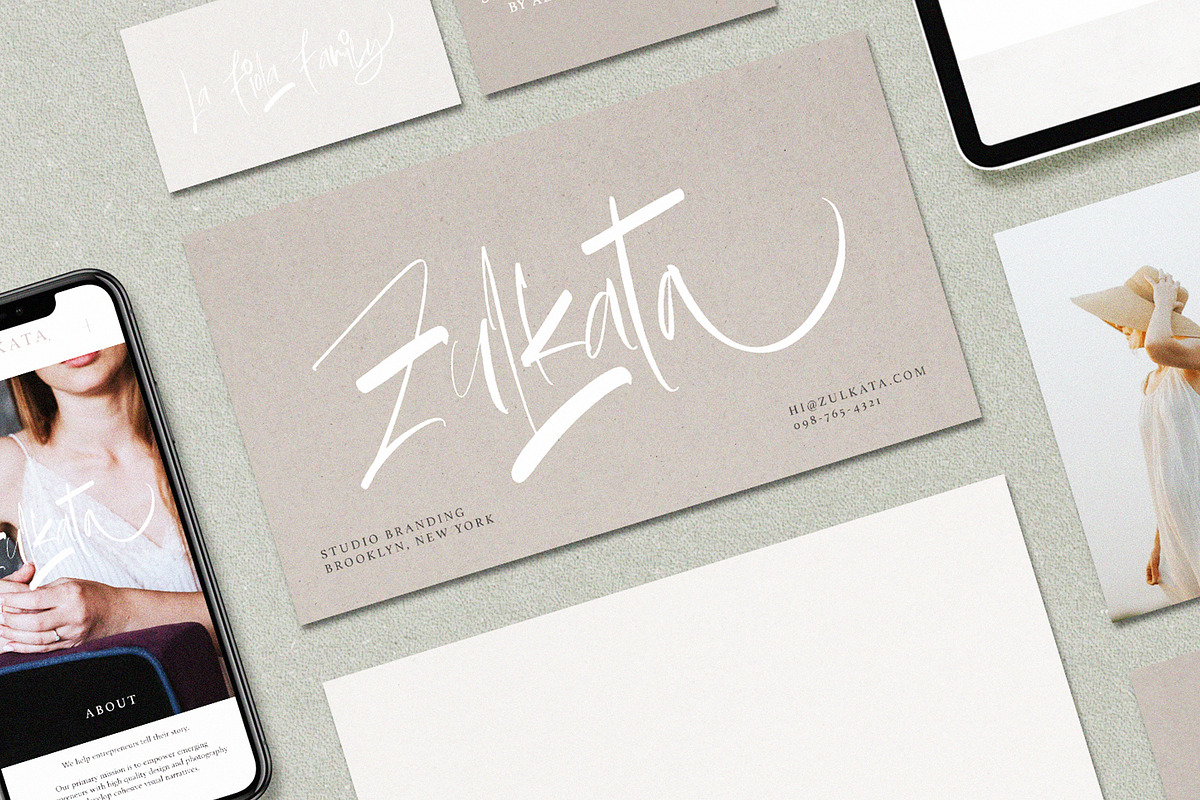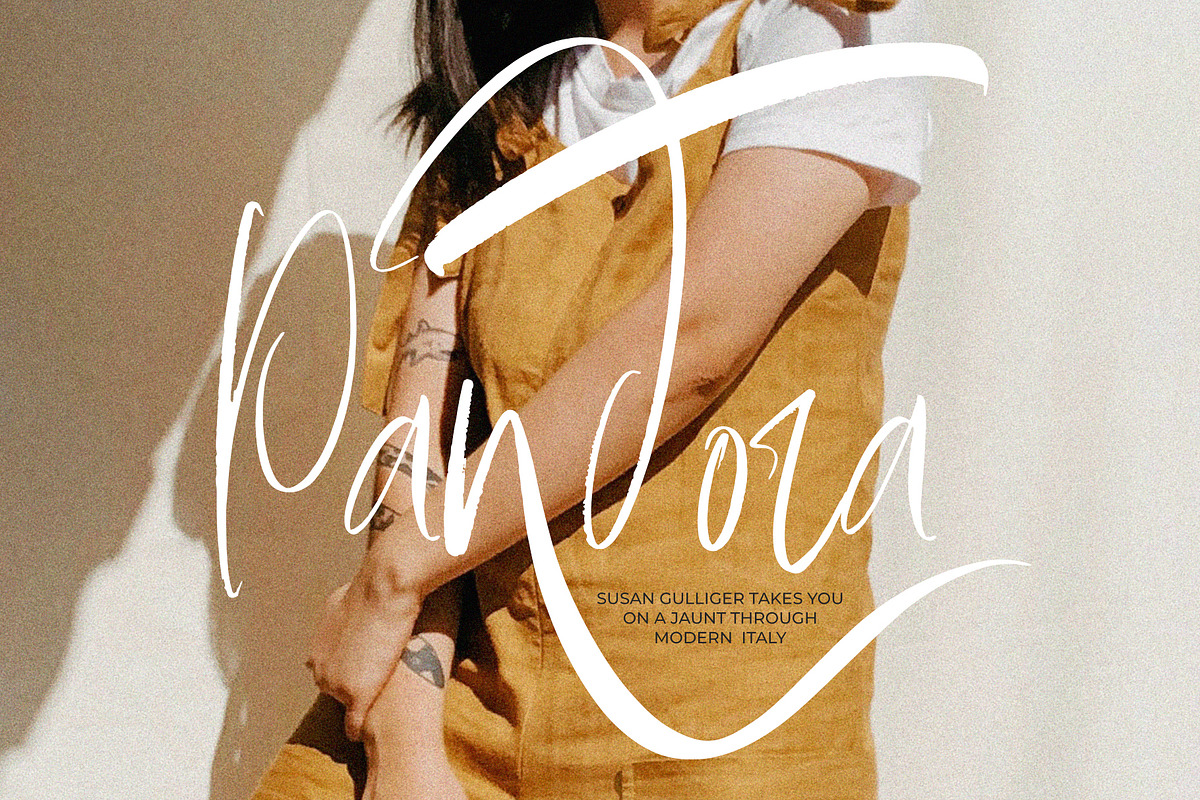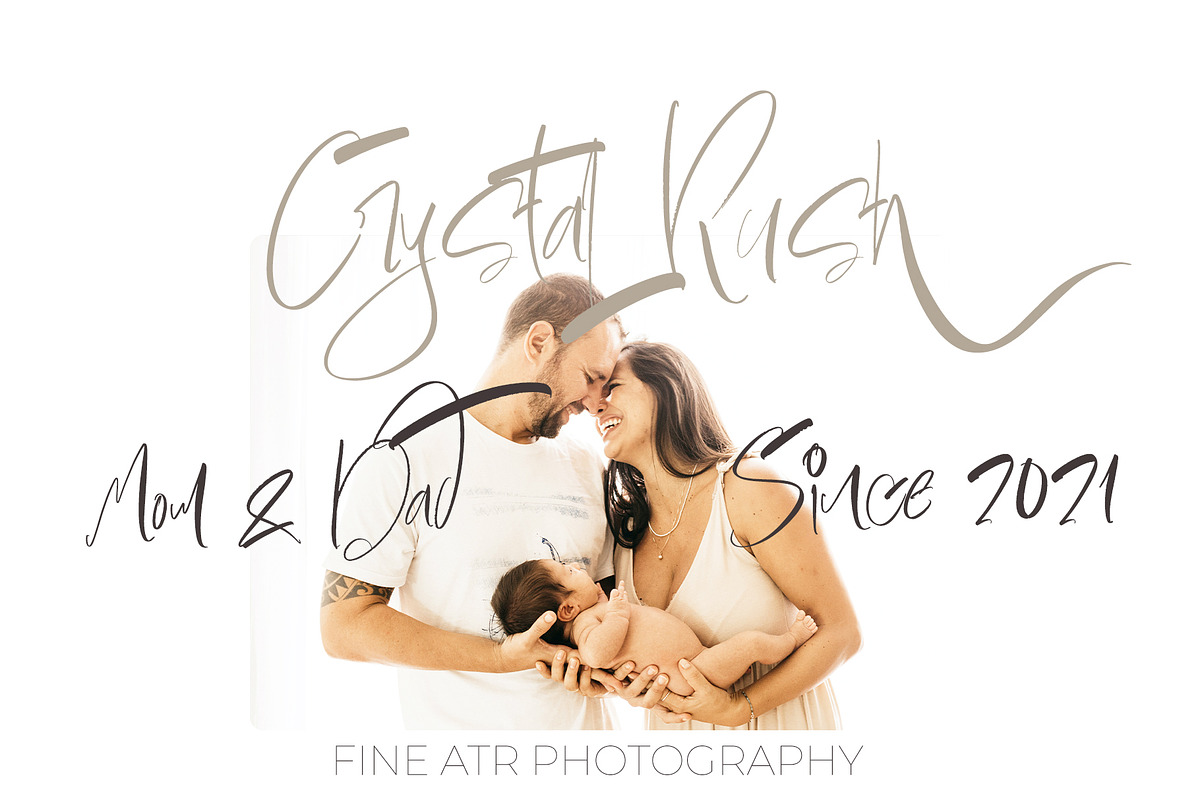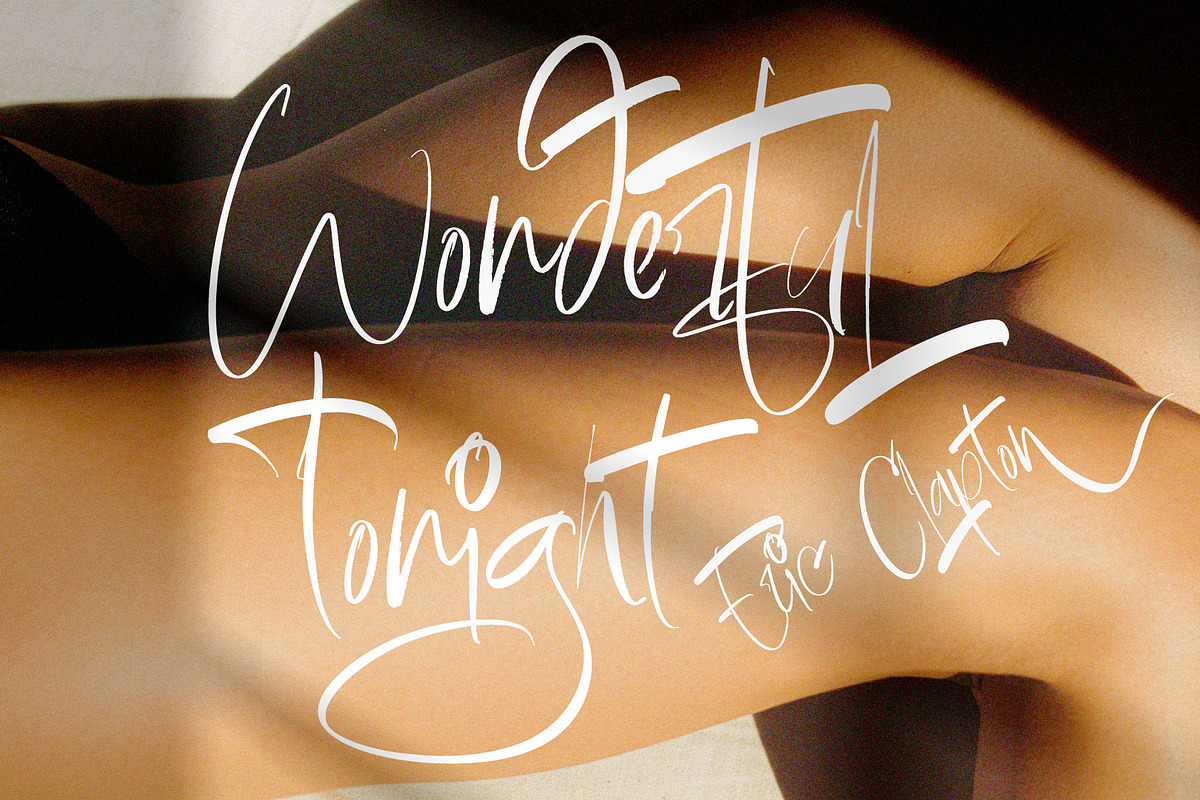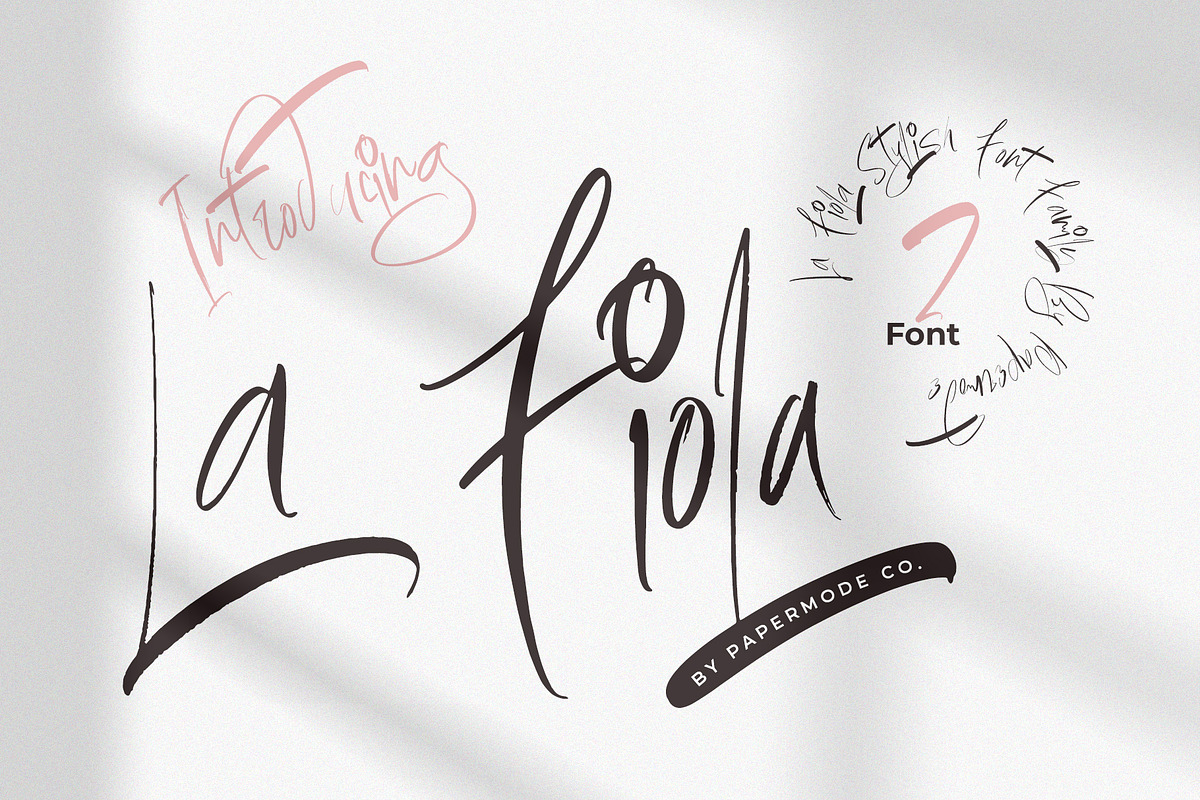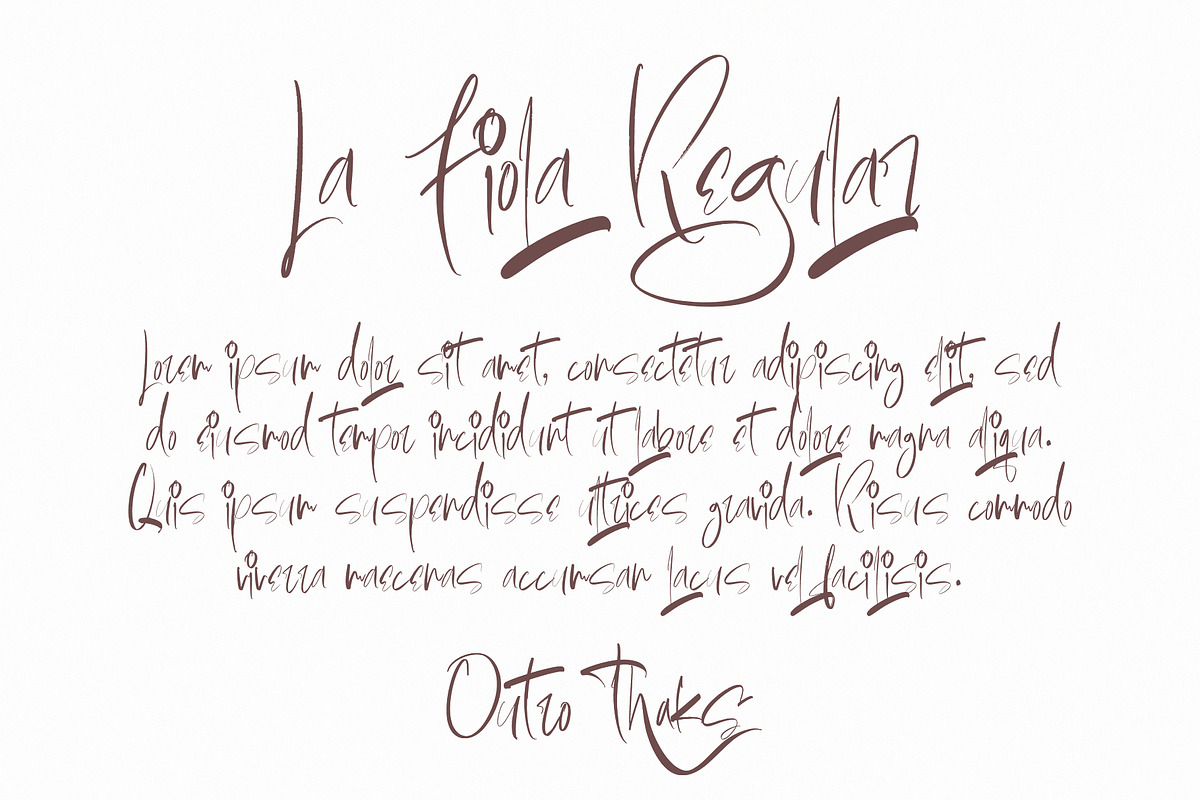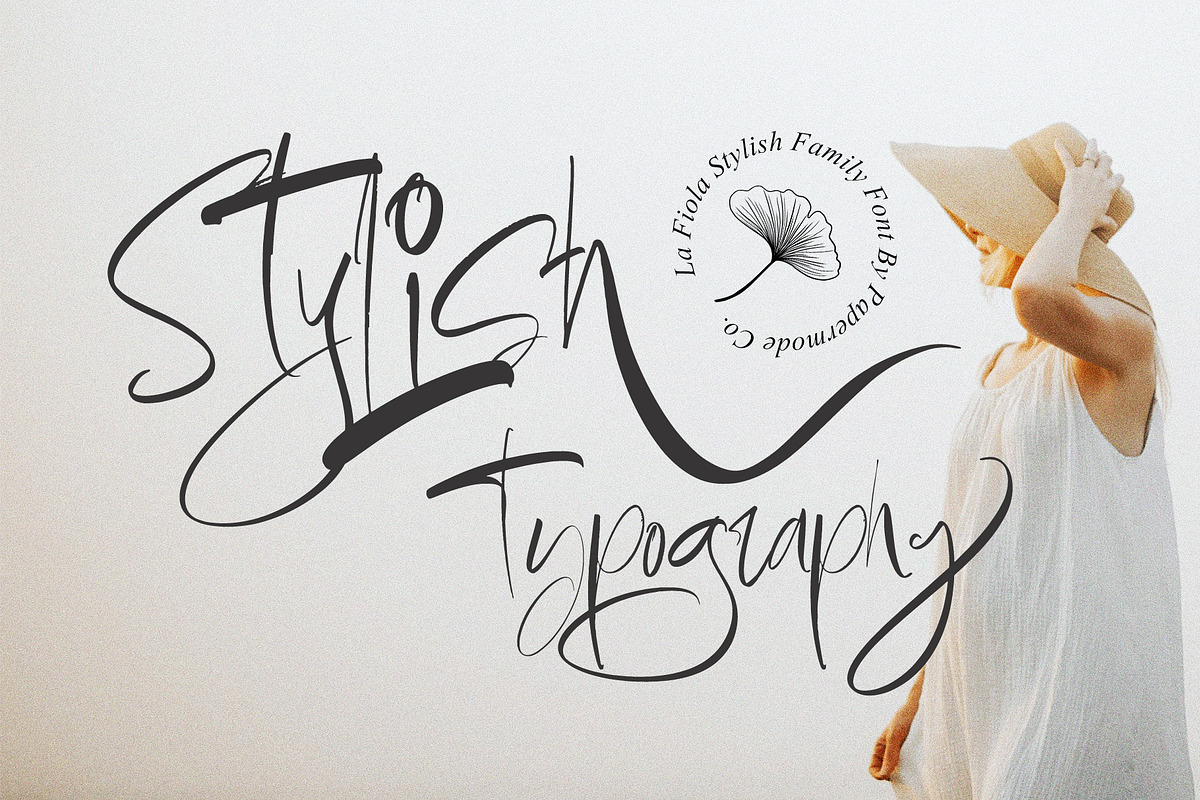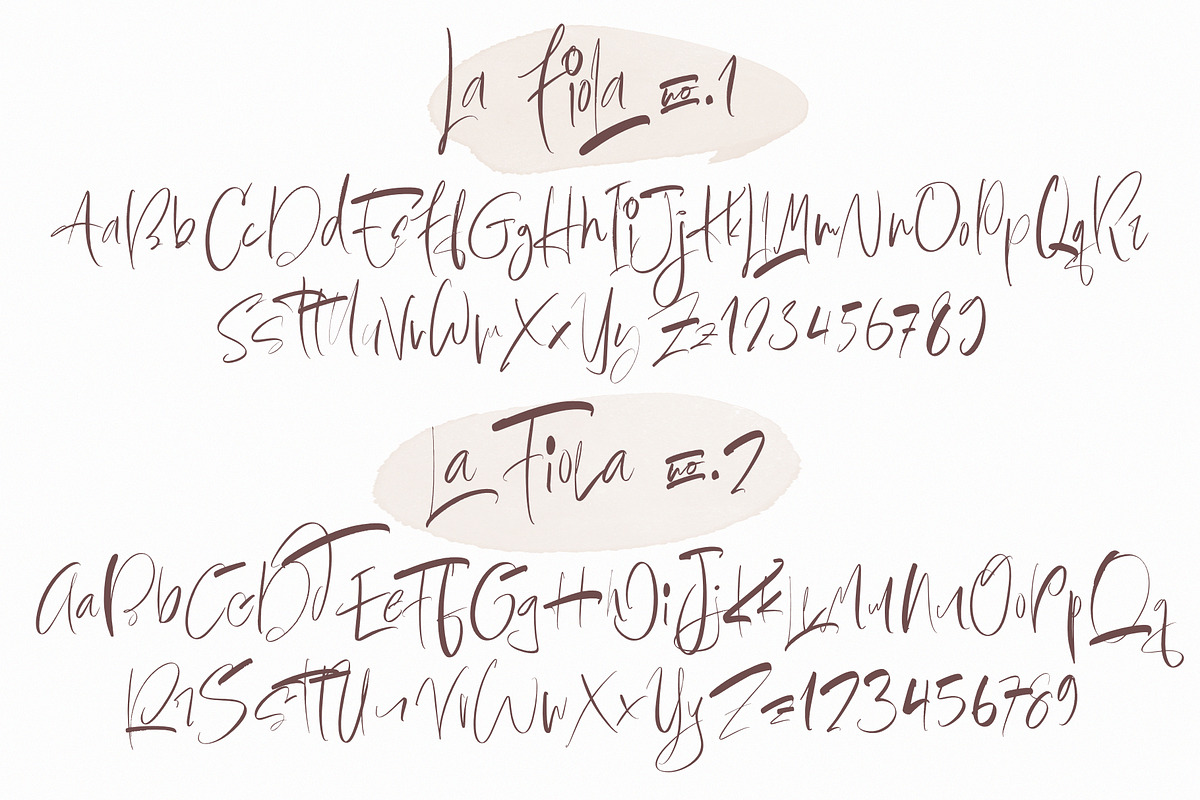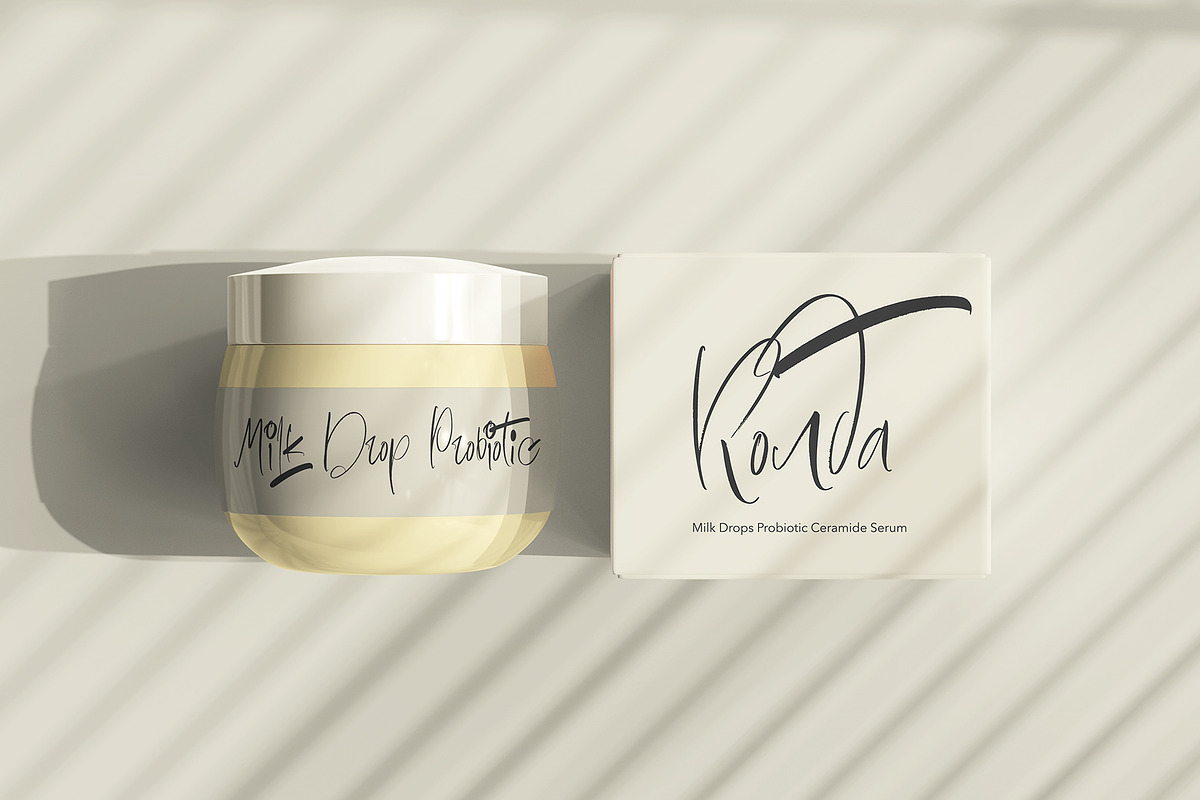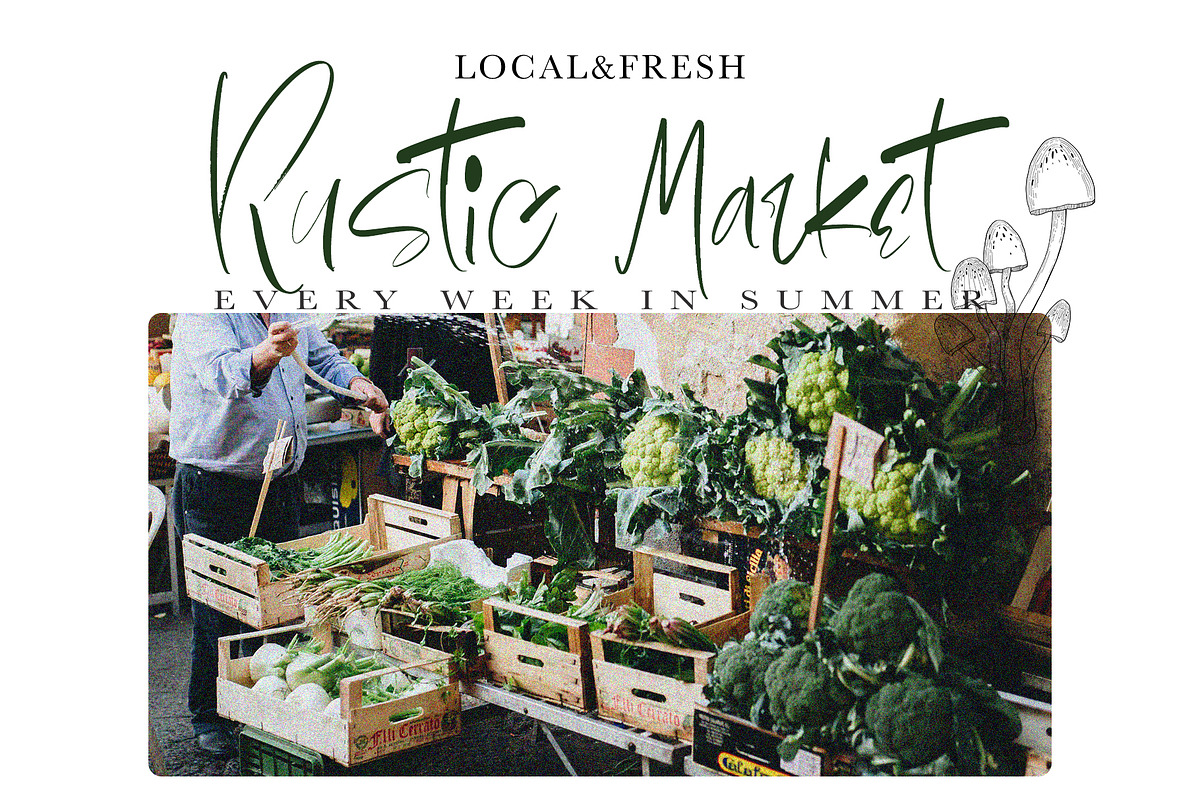
La Fiola Family is a stylish handwitted font inspired by natural brush typography. Written in rapid motion using a slightly dry brush pen. This will give you a fresh and elegant design. La Fiola consists of two different styles, comes with uppercase and lowercase letters, uppercase and lowercase sets, numbers, alternative styles for some lowercase characters are also available which make your text and designs more attractive.
Included multilingual support and special ligatures